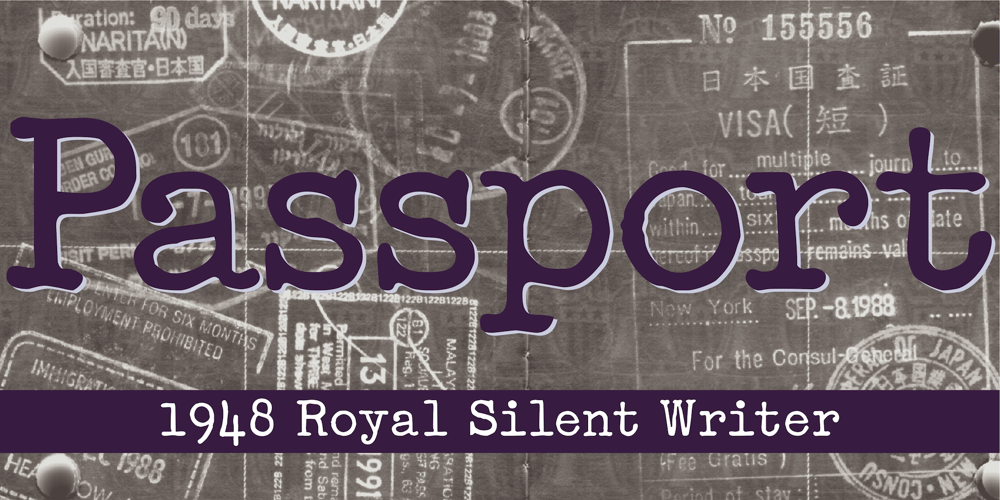
Passport48 Font Family was designed by Joseph Coniglio and published by Coniglio Type. Passport48 contains 1 styles and family package options. Passport48 exclusively in otf. opentype format, originally debuted in 1997 as Passport, close to the beginning of the indie typographer boom. Almost 25 years have passed since it was introduced at MyFonts as PS1 and later in 2003 in TT TrueType.**It was designed by Joseph Coniglio of Coniglio Type as a revival.Historically, Passport was digitized from a shiny black enamel 1948 Royal Silent Deluxe portable. Kept on the ship of merchant marine, Captain John O’Learn, it was a salty manual typewriter with no intrinsic value as a collectable, even though it is awash as a work horse and a fine communicator of it’s time.. **NOTE: Little Passport family leaves the nest:The old weight variations, styles and formats have been eliminated to allow the original face to be stand alone, on its own attributes.For those purchasing their first typewriter fonts and to our diehard collectors as well, Passport presents a friendly new port-of-entry. A simple set, that is freed of many of the normal distressed points and paths that had made most “typewriters” authentic looking, but difficult to print and manipulate in layouts back in the day. It’s smooth nature comes from its impressions struck directly onto a piece of carbon paper bypassing the silk ink ribbon and going directly from metal to carbon paper transferring to a piece paper with very little tooth. Examine the glyphs to be certain you have what you need from this minimalist set,Passport48 is intended for ease of use and affordability. This is a warm font in a cold cruel world and a real port in the storm! It is versatile in today’s layouts with 24 years of worldwide sales.…Please enjoy the fruits of its travels, hoping your destinations and explorations into graphic design and letter composition are happy ones. -Joe Coniglio, the Pacific Northwest (2021).